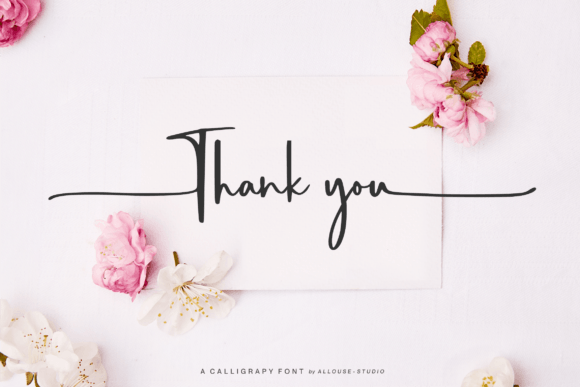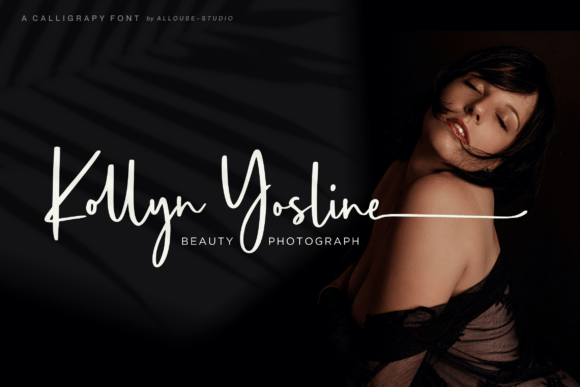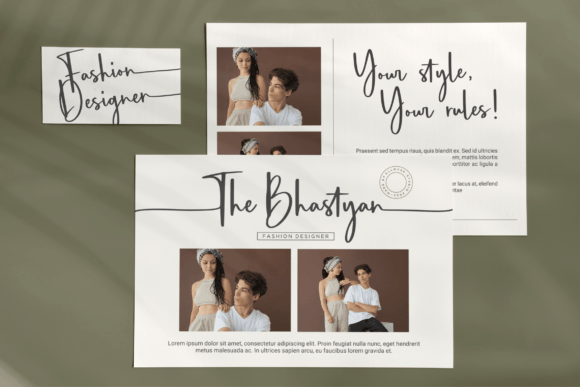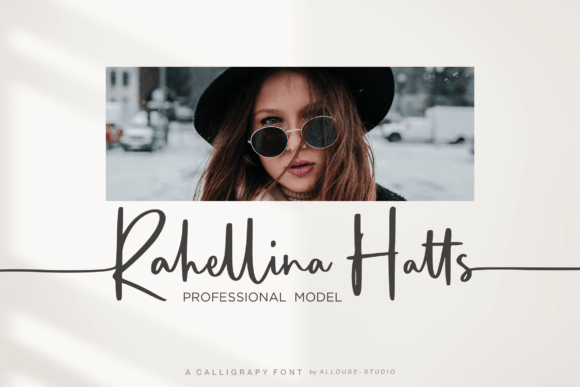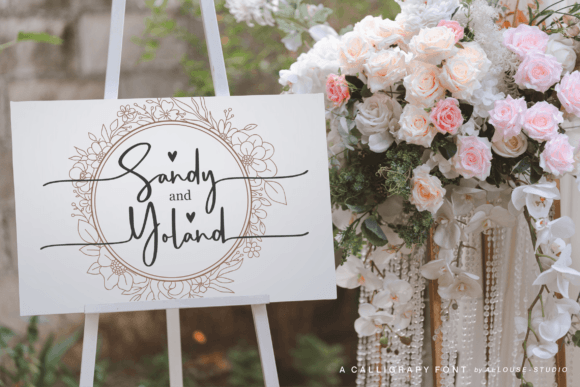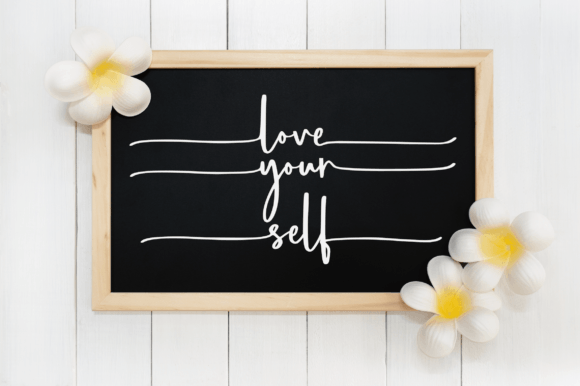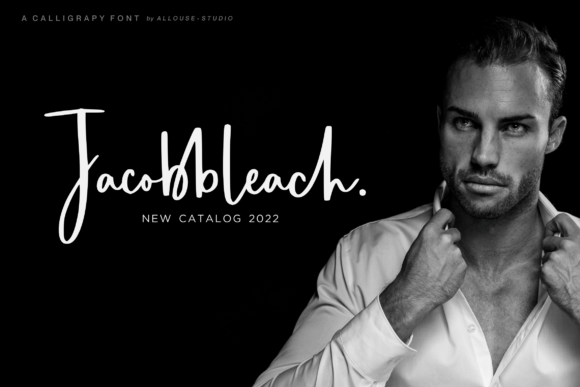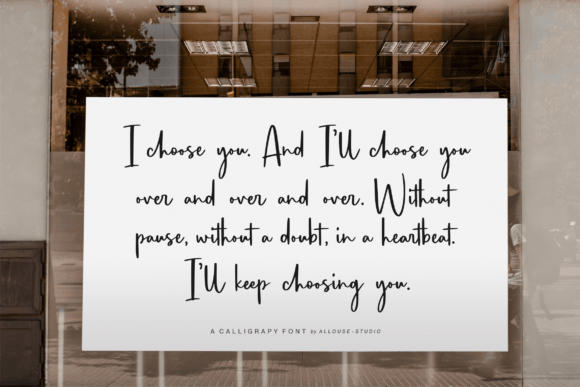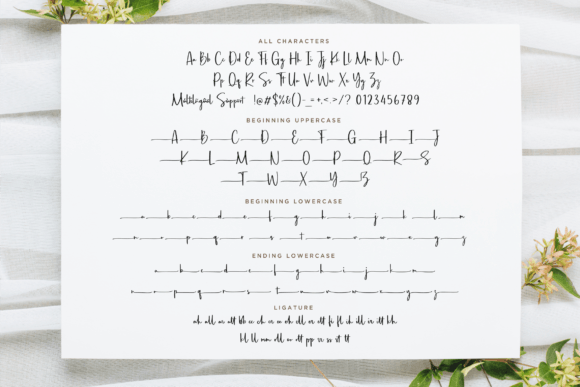
Blackmindlify Font
About Blackmindlify Font
“Blackmindlify is a captivating handwritten font that effortlessly blends beauty with a touch of artistic flair. Its graceful, flowing characters make it a versatile choice, ideal for a wide range of design applications. Whether you’re working on product packaging, branding projects, magazines, social media posts, wedding invitations, or simply aiming to make words stand out against any background, Blackmindlify adds a touch of elegance and sophistication to your designs.
One of the standout features of Blackmindlify is its ability to evoke a sense of creativity and style. The font’s handwritten charm brings a personal touch to your projects, creating a connection with your audience. Its smooth lines and carefully crafted details make it visually appealing, ensuring that your designs leave a lasting impression.
Blackmindlify is not just visually pleasing; it’s also incredibly versatile. Its adaptable nature allows it to enhance various design contexts, from high-end product packaging to casual social media posts. The font effortlessly transitions between different design themes and aesthetics, making it a valuable asset for designers seeking flexibility and creativity.
What sets Blackmindlify apart is its PUA encoding, a feature that significantly enhances its usability. With PUA encoding, you can access all the unique glyphs and swashes with ease. This opens up a world of design possibilities, allowing you to experiment with different letter combinations, styles, and decorative elements. Whether you want to add elegant swashes to your branding materials or create eye-catching headlines for your magazine layout, Blackmindlify provides the creative freedom you need.
Incorporating Blackmindlify into your designs is like adding a touch of artistic expression that elevates your projects to new heights. Its versatility and accessibility make it a valuable tool for both seasoned designers and enthusiasts alike. Watch as your creativity flourishes, and your designs come to life with the exquisite beauty of Blackmindlify.
In summary, Blackmindlify is more than just a font; it’s an artistic statement that transforms ordinary words into visually captivating expressions. Its beautiful handwritten style, combined with its PUA encoding, makes it a must-have addition to any design toolkit. Embrace the elegance of Blackmindlify and let your imagination run wild, crafting designs that are as unique and enchanting as the words they convey.”